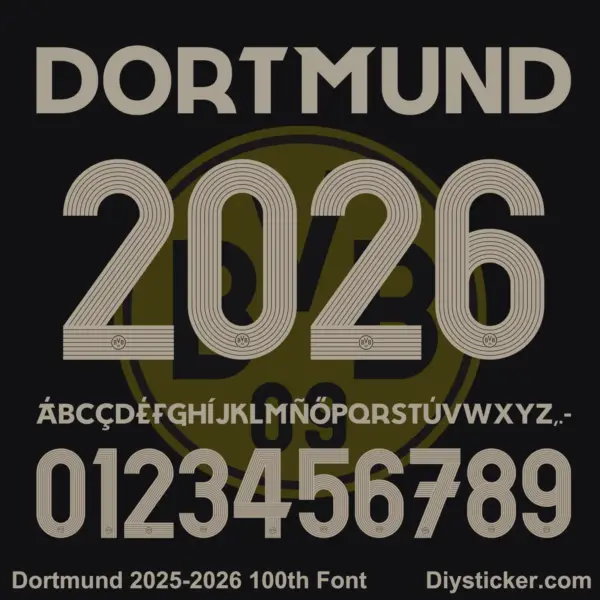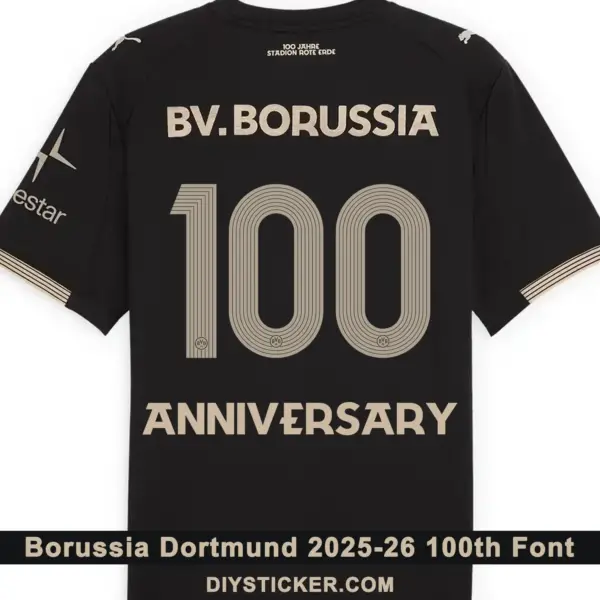
Borussia Dortmund 2025-2026 100th Anniversary Font Download
Equip your workshop floor with the verified Borussia Dortmund 2025-2026 100th Anniversary font master file bundle, engineered specifically for custom uniform printers, sports apparel shops, and football jersey collectors. This premium digital asset delivers a perfect recreation of the geometric sans-serif lettering and the iconic multi-line track “Stadion Rote Erde” centenary numbers deployed by Die Schwarzgelben. Bypass the time-consuming process of manually tracking low-fidelity photos—our production-ready assets provide installable desktop system typefaces and clean cutting vectors for immediate download right after checkout.
Centenary-Accurate Details: Recreates the retro-inspired multi-stripe inline track numbers, bold block lettering, and baseline BVB 09 circular crest emblem placeholders.
Premium Borussia Dortmund 2025-2026 100th Anniversary Jersey Typography & Numbers Archive
In the fast-paced custom teamwear manufacturing and classic kit restoration sectors, having access to sharp, verified club assets heavily influences your production speed and business profitability. BVB’s special 100th Anniversary “Stadion Rote Erde” blackout kit demands absolute typographic accuracy to preserve authentic collector value. This commercial-grade Borussia Dortmund 2025-2026 100th font repository serves as an industry-grade toolkit for modern print shops. Instead of guessing line counts, character weights, or multi-stripe spacing intervals, your workshop floor can instantly import production-ready digital tracks to output high-fidelity namesets.
True Replica Detailing: Every asset accurately maps the unique character tracking, vintage multi-line racetrack contours, and precise baseline BVB crest emblem markers required for collector-grade apparel customization.